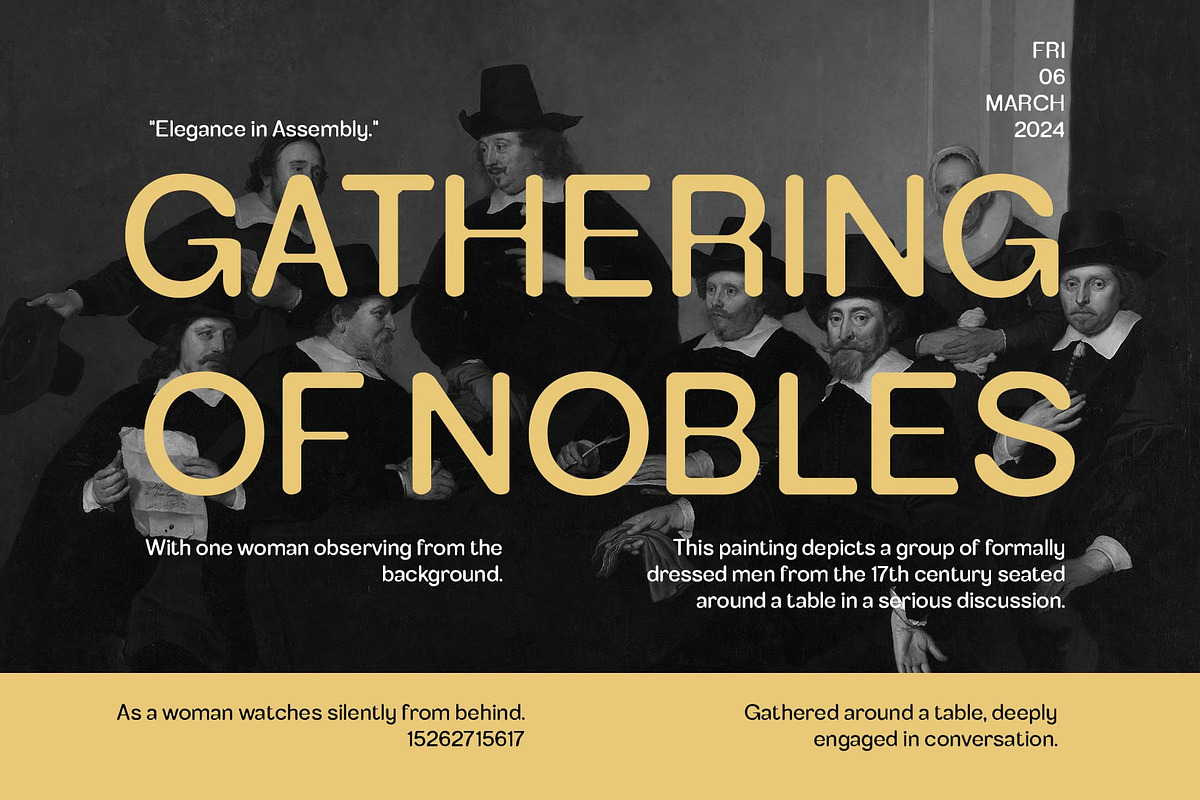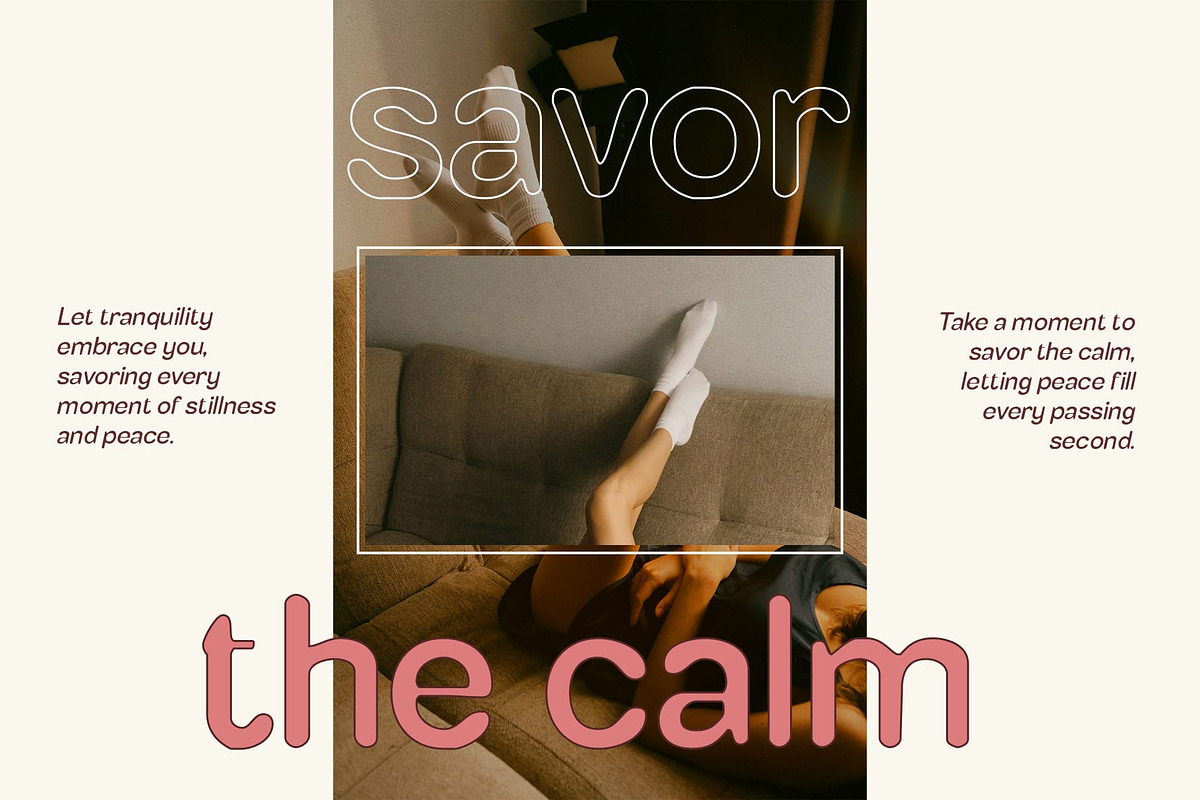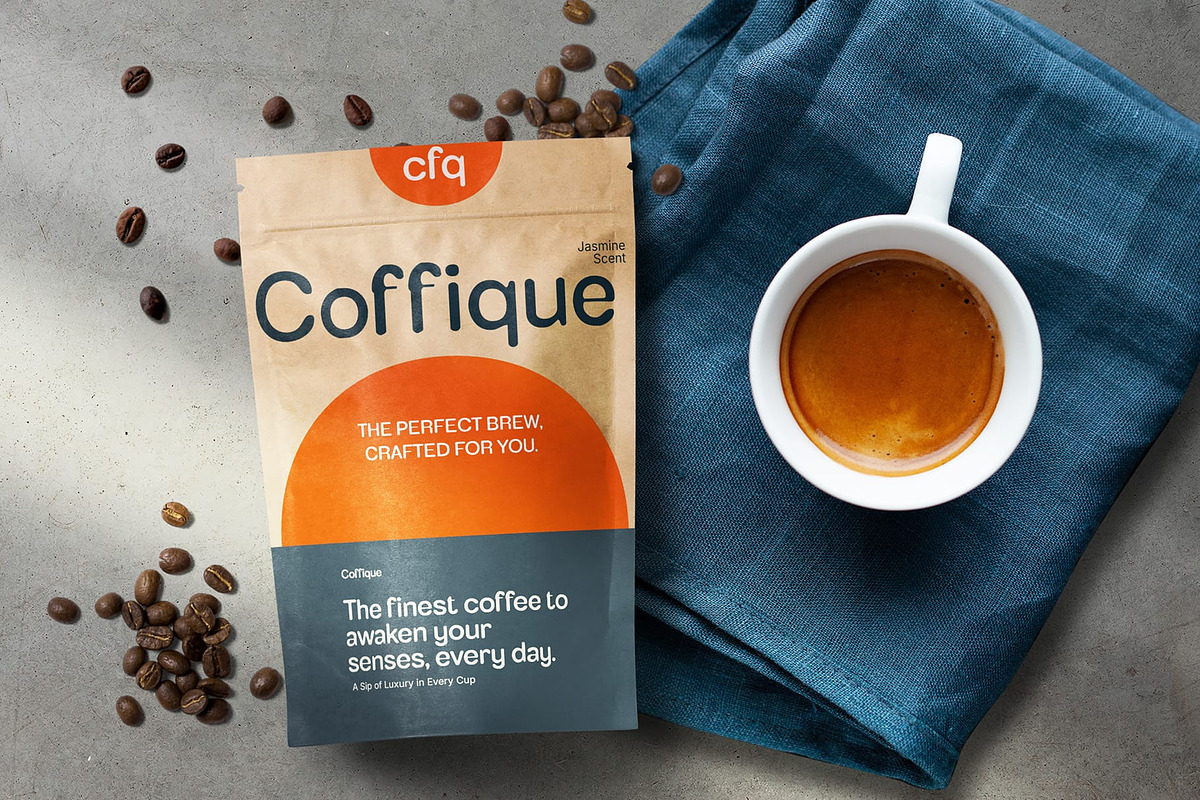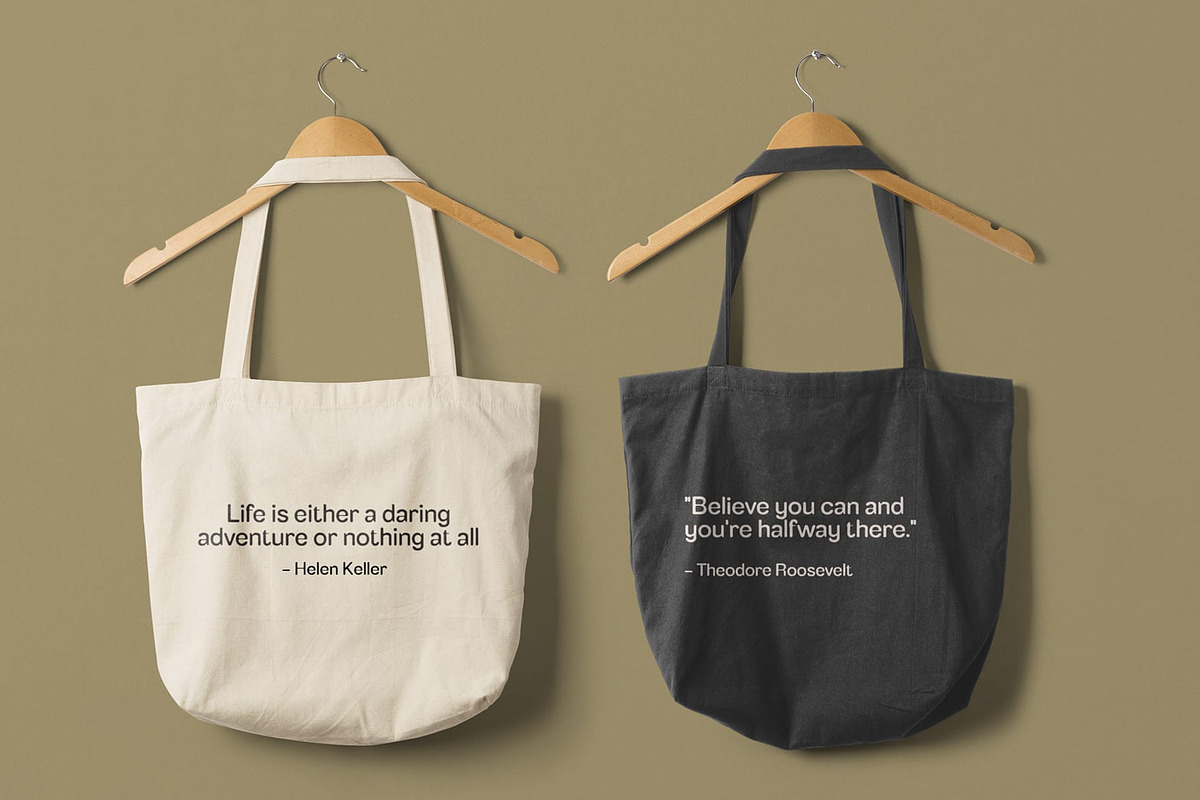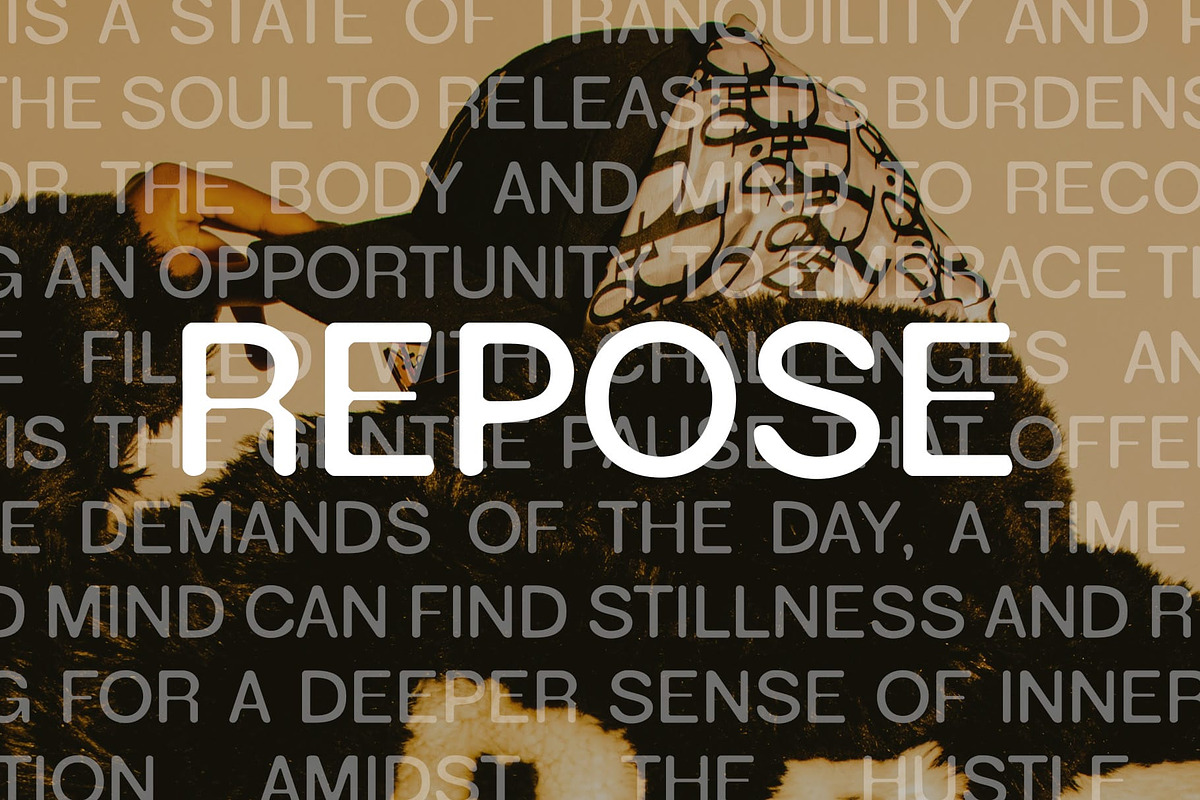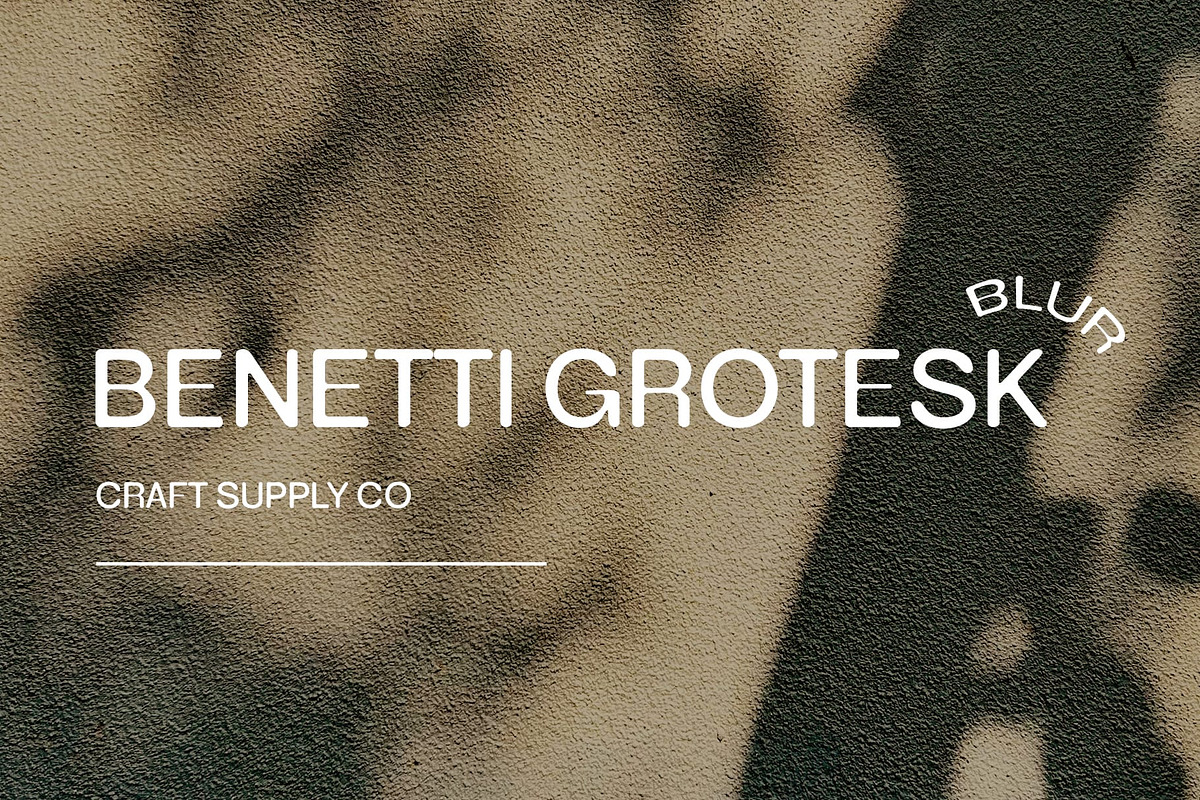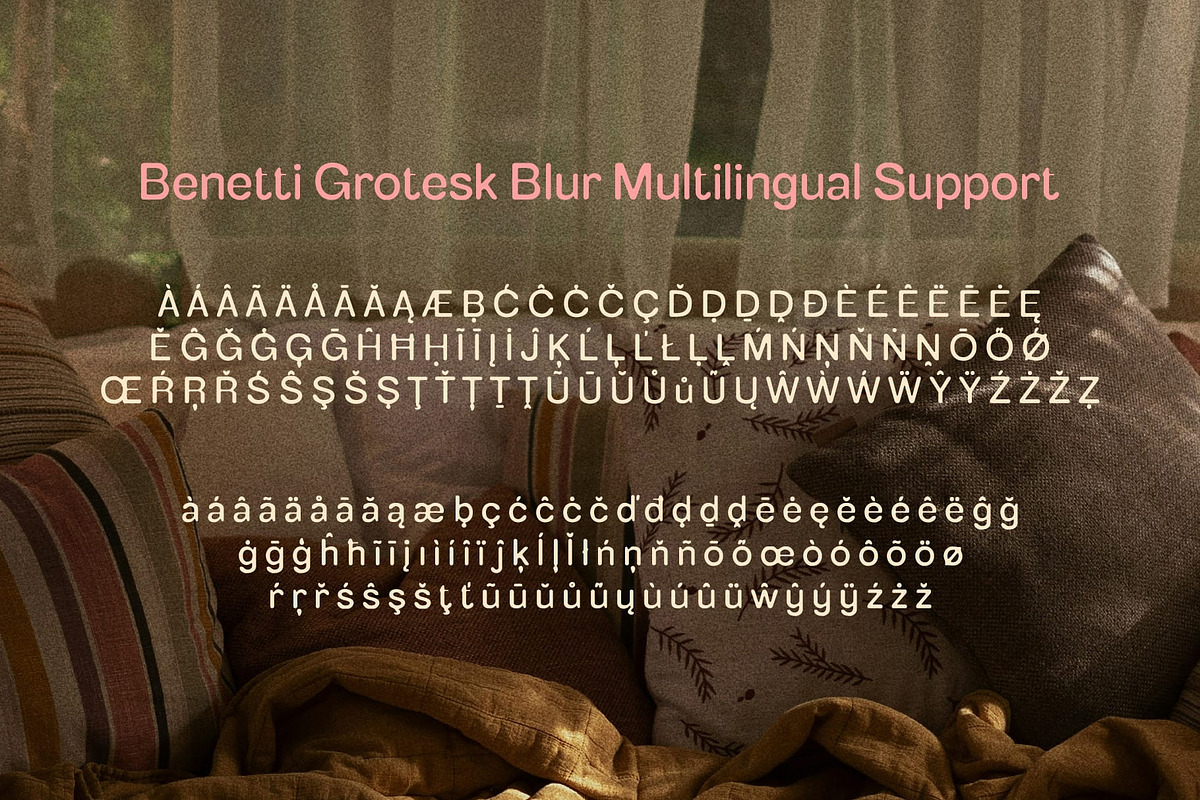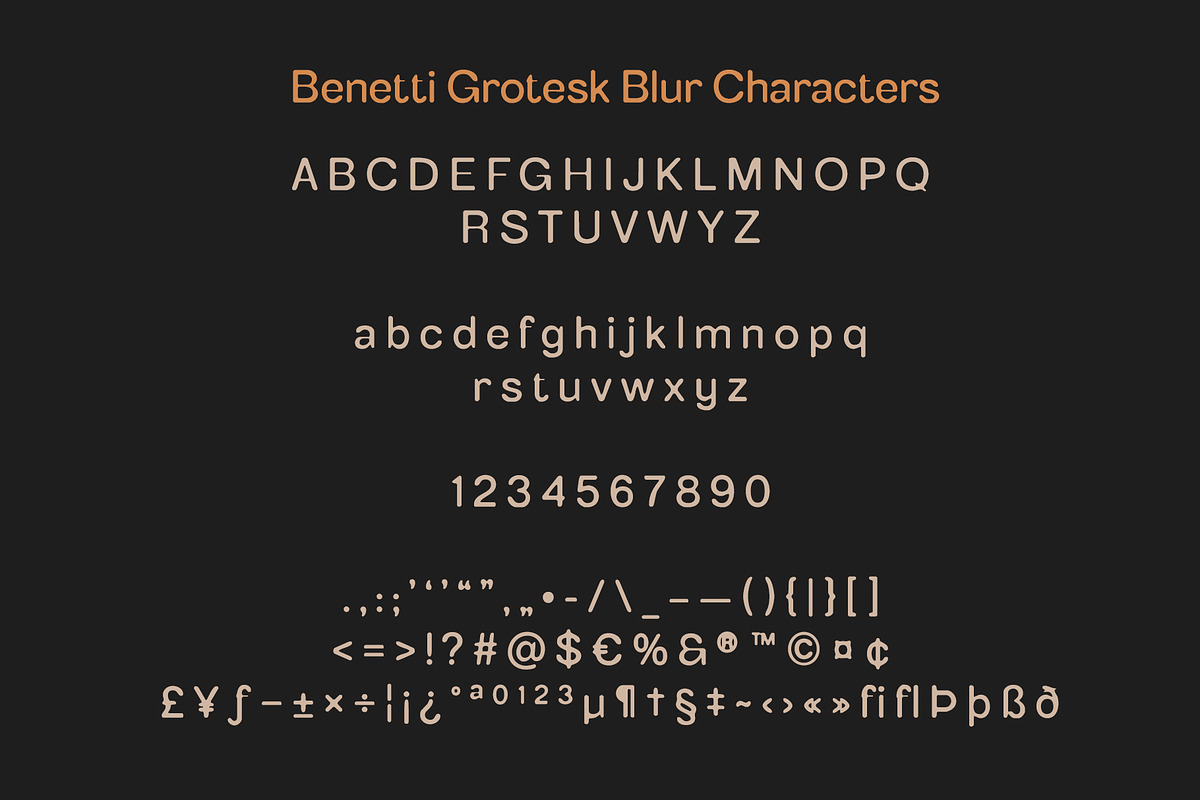
Benetti Grotesk Blur
Benetti Grotesk Blur – A Modern Sans Serif with Artistic Motion
Geometric Structure with Grotesque Charm Benetti Grotesk Blur is a modern sans serif font that combines clean geometric shapes with grotesque forms to create a bold and contemporary look. The precise, sharp lines of its structure offer a strong, confident impression, while its grotesque influences bring a sense of character and approachability. This blend of geometric precision and organic form makes the font ideal for a wide variety of design applications, from digital interfaces to branding.
Blur Effect for a Soft, Atmospheric Touch What sets this font apart is its unique blur effect, which adds an artistic and atmospheric element to its design. The blur softens the otherwise sharp and defined edges, giving the font a dynamic, almost ethereal quality. This effect evokes a sense of motion and depth, transforming the static form of a traditional sans serif into something more fluid and creative. Perfect for designs that want to evoke a sense of innovation and futurism.
Ideal for Digital Designs and Futuristic Branding This blur font is particularly well-suited for digital designs, offering excellent legibility while maintaining an engaging, forward-thinking appearance. Whether used for websites, apps, or digital marketing materials, the font stands out with its blend of clean lines and atmospheric blur. The modern and elegant aesthetic, combined with the artistic blur.